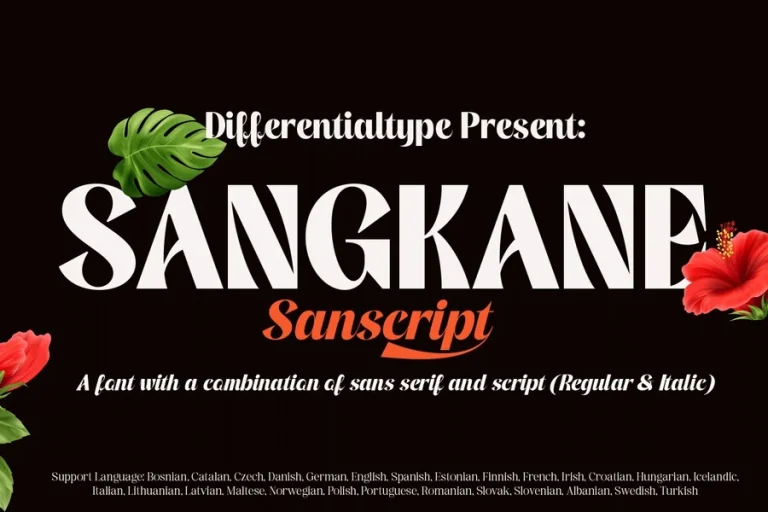
Sanscript Font Style Guide for Creative Text and Design Use
Sanscript Font
Sanscript font is a story-telling typeface that is based on the ancient scripts and modern trends in designing. Sanscript font is used by many people to provide the words with special and artistic appearance. It is articulate and clean at the same time. It is a trend in social media bios logos tattoos posters and digital art. People adore the use of sanscript font as it does not appear to be difficult to read even though it looks different.
Sanscript font is not part of a single letter. It combines visuals of classical scripts as well as modern typography. This renders it adaptable to branding and writing creatively. When individuals need a text that is relaxed refined or cultural they tend to use sanscript font.
Sanscript font looks good because it is balanced. It is artistic and yet readable. It is suitable with names quotes titles and ornamental text. A lot of designers employ it to make themselves stand out without screaming. It is also applicable to both modern and traditional themes.
Sanscript font is commonly employed on the internet with font generators. These applications transform ordinary text into fancy ones. The output is easily copied and pasted. That is why the popularity of sanscript font grows on various applications, such as Instagram Tik Tok and WhatsApp.
Due to its appearance, which makes it stand out, many users believe that there is more meaning behind the use of sanscript font. It can be very spiritual creative or thoughtful. This is the reason why individuals apply it in quotes and personal branding.
History and Inspiration Behind Sanscript Font
Sanscript font is a concept of old writing. It draws visual inspiration to ancient scripts like Sanskrit Devanagari and early styles of calligraphy. These shapes were modified by the designers into contemporary electronic forms.
Sanscript font is not language. It is a design style. It takes borrowed beauty of old letters and takes out complication. This enables any person to easily use it without going through a new script.
A lot of digital artists were interested in having a font that would not be ageing. It was filled with Sanscript font. It links the past and the present in a very basic manner. That is why it is so traditional and modern.
Over time the font evolved. The designers incorporated more rounded curves and equal spacing. This increased its screen readability. It has become popular nowadays in branding logos and creative posts.
Sanscript font is also peaceful and pensive. This is why it can be typically applied in wellness content yoga branding and inspirational quotes.
The common use of Sanscript Font.
Sanscript font is used in numerous creative places. One of the largest platforms where it thrives is the social media. Individuals use it in their usernames profiles and captions to shine through.
Sanscript font is used in brands logos as it is artistic and premium. It assists in the formation of an individual identity. Several small companies like it with crafted or religious goods.
Sanscript font is also used by writers and poets. It adds emotion to words. In quotes, it is more profound without altering the meaning.
Sanscript font is used in posters and digital art by artists. It is effective with minimal designs and cool colors. It is also suitable to spiritual and cultural topics.
Planners utilize invitations and banners. It is graceful but not very formal.
Popular Names Styled in Sanscript Font
Many people enjoy writing names in sanscript font. Below are more than fifty name ideas that look beautiful in this style. These are written in plain text but often styled using sanscript font tools.
These names look elegant when converted into sanscript font using online tools. Many people use them for profile names or artwork.
Where there is a lot of readability, always look at the fonts used. Certain styles are beautiful but can be difficult to read when it is in long form. It suits best short phrases or titles.
What is sanscript font used for
Sanscript font is used for creative text such as names quotes logos and social media bios.
Is sanscript font a real language
No it is a decorative font style inspired by ancient scripts.
Is sanscript font good for logos
Yes it is popular for logos because it looks artistic and unique.